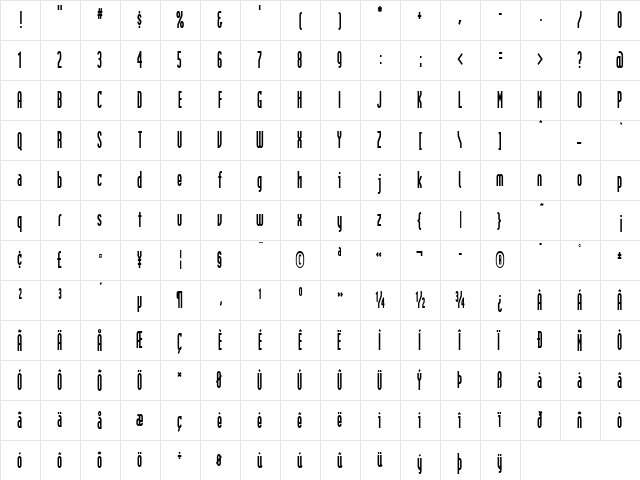
IndustrialCondensed Heavy
Design Context for IndustrialCondensed Typeface
IndustrialCondensed offers clean, dependable letterforms without strong stylistic allegiance, making it a practical choice for designers who need flexibility. The condensed width makes it efficient for tight spaces without sacrificing legibility.
Pro Tip: Use IndustrialCondensed in both headline and body roles to test its range before committing to a single application.